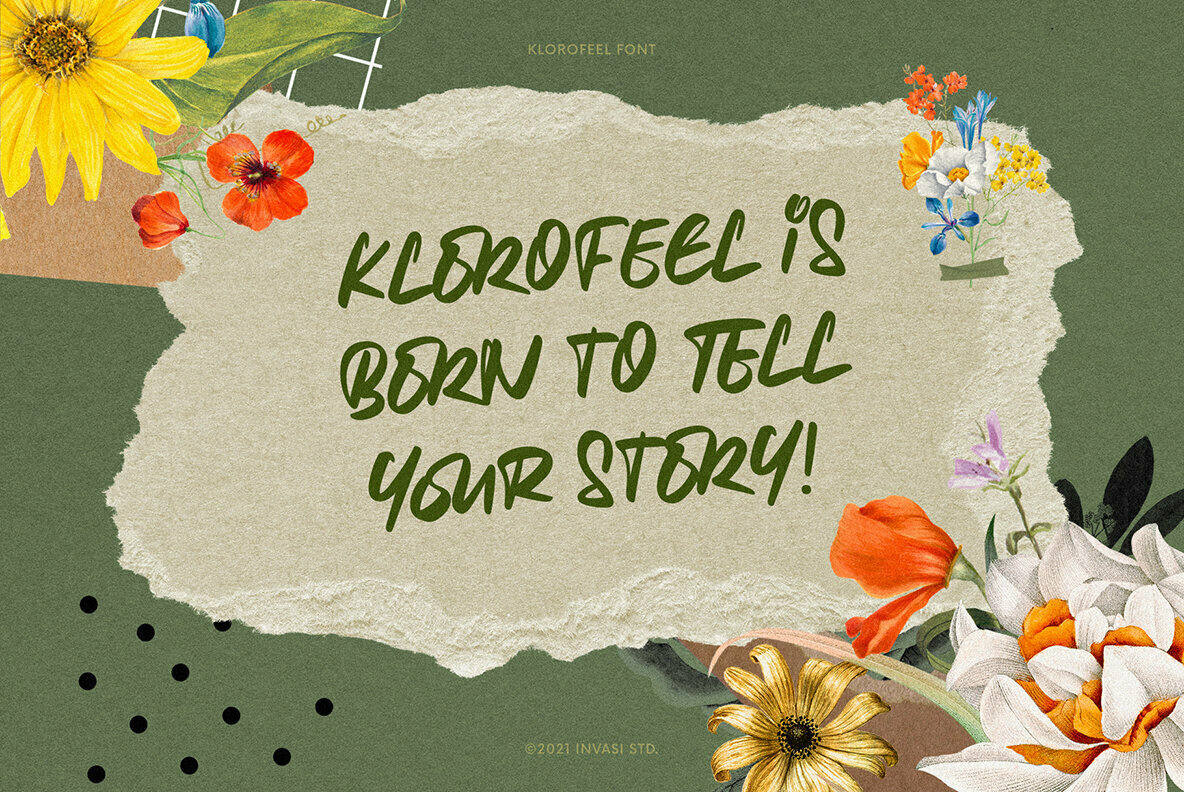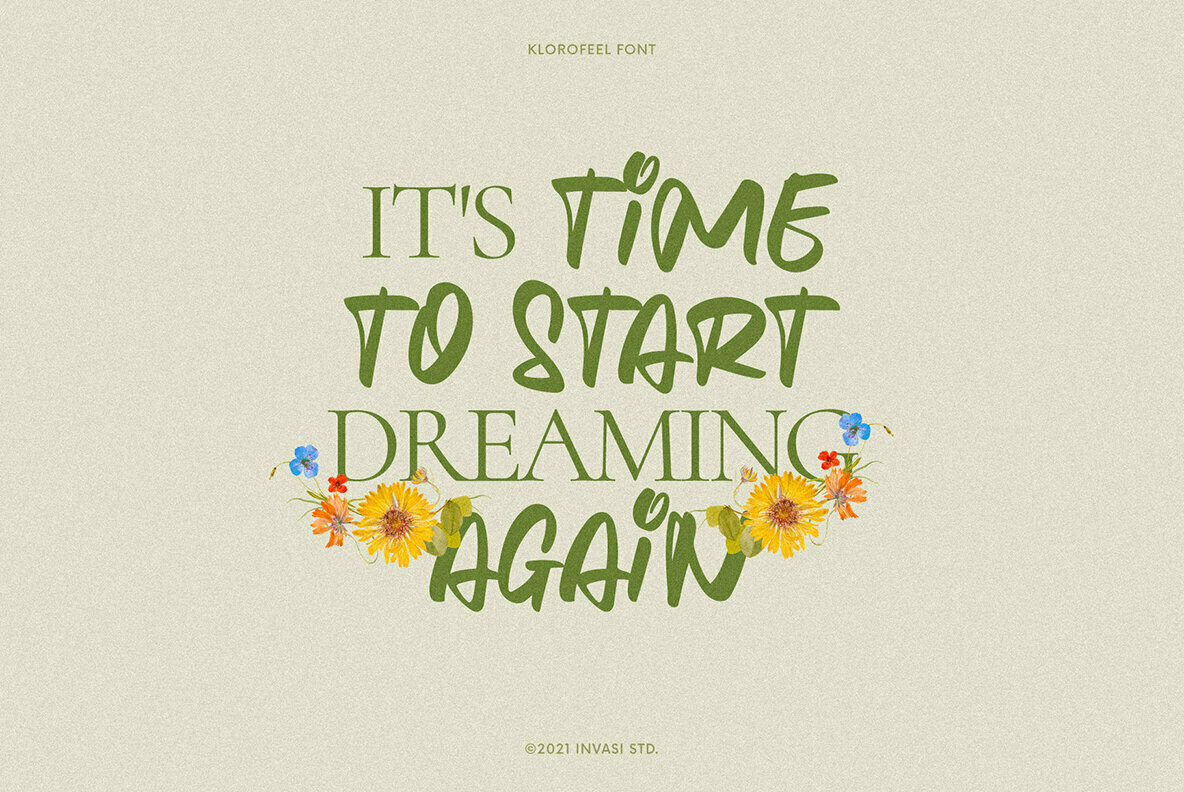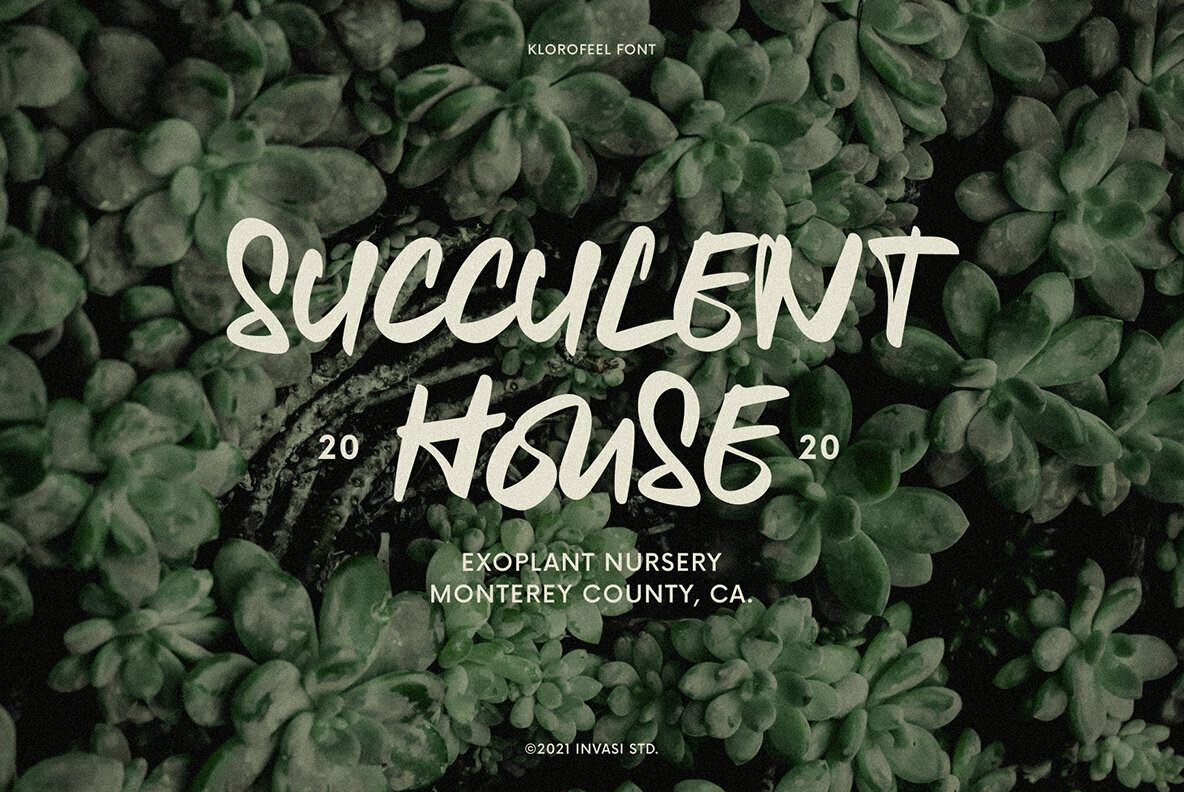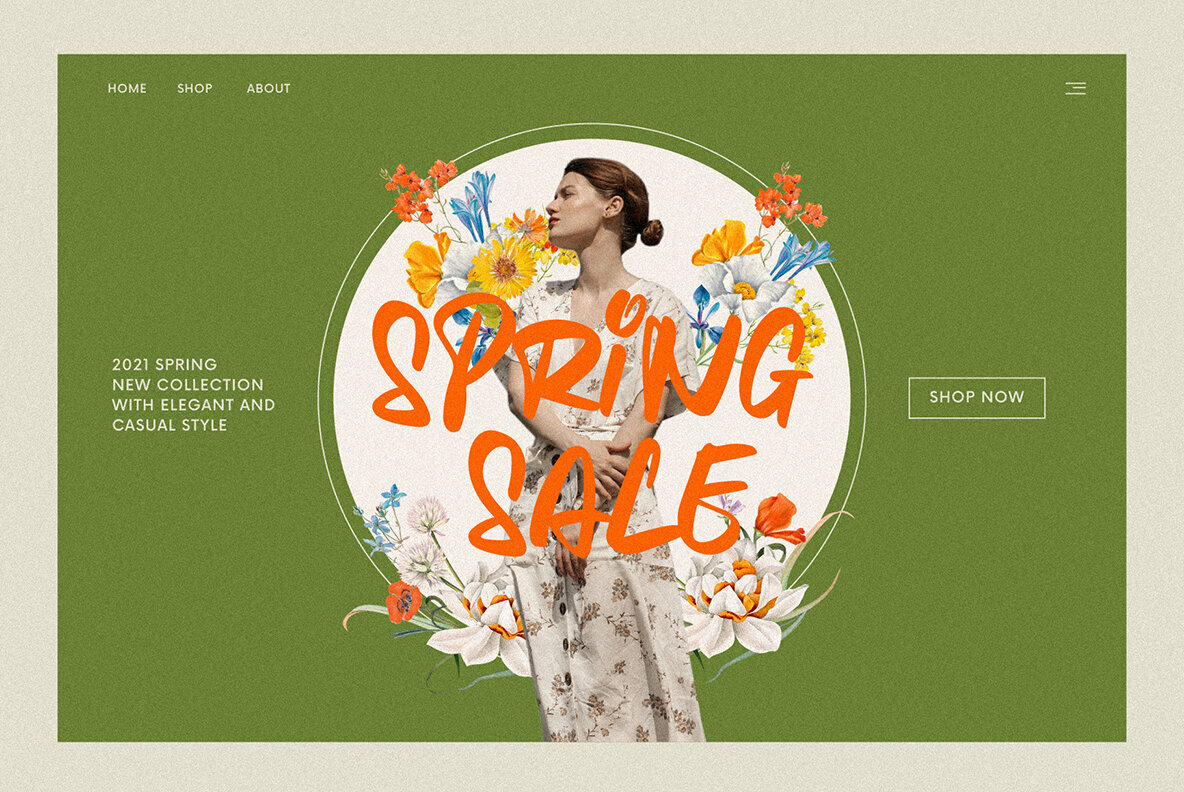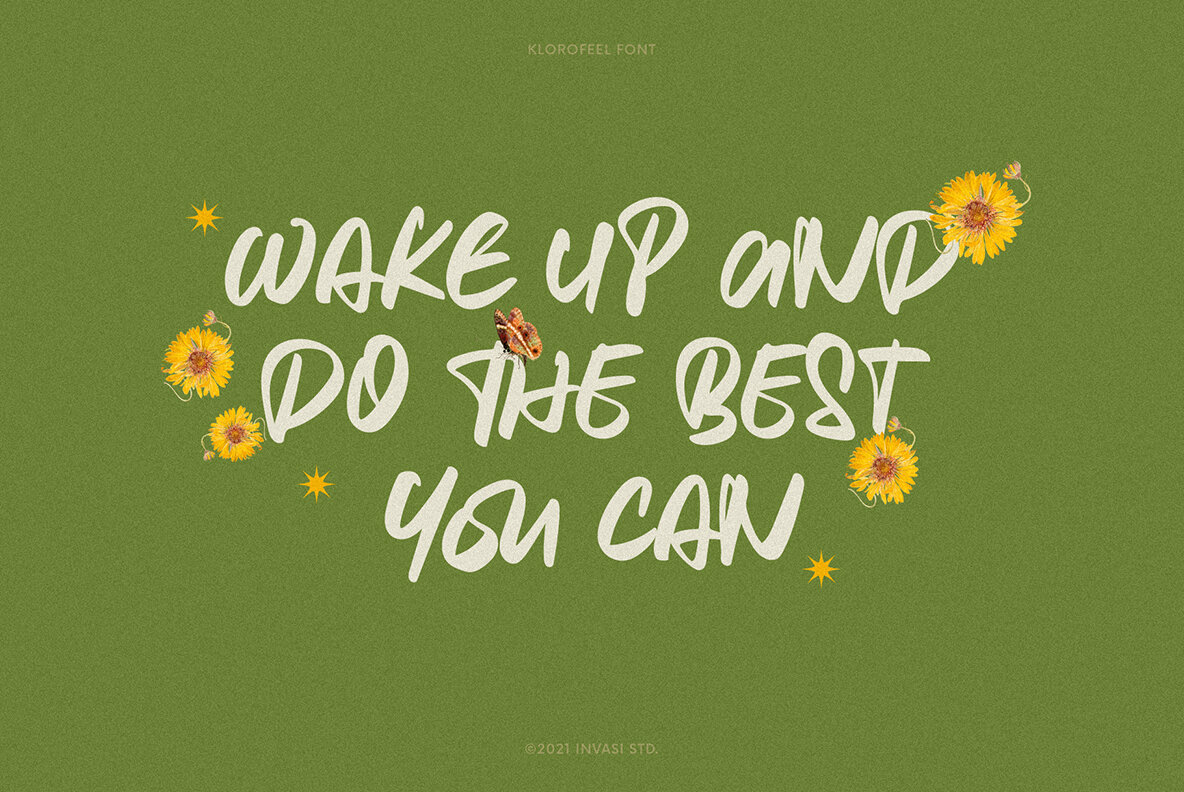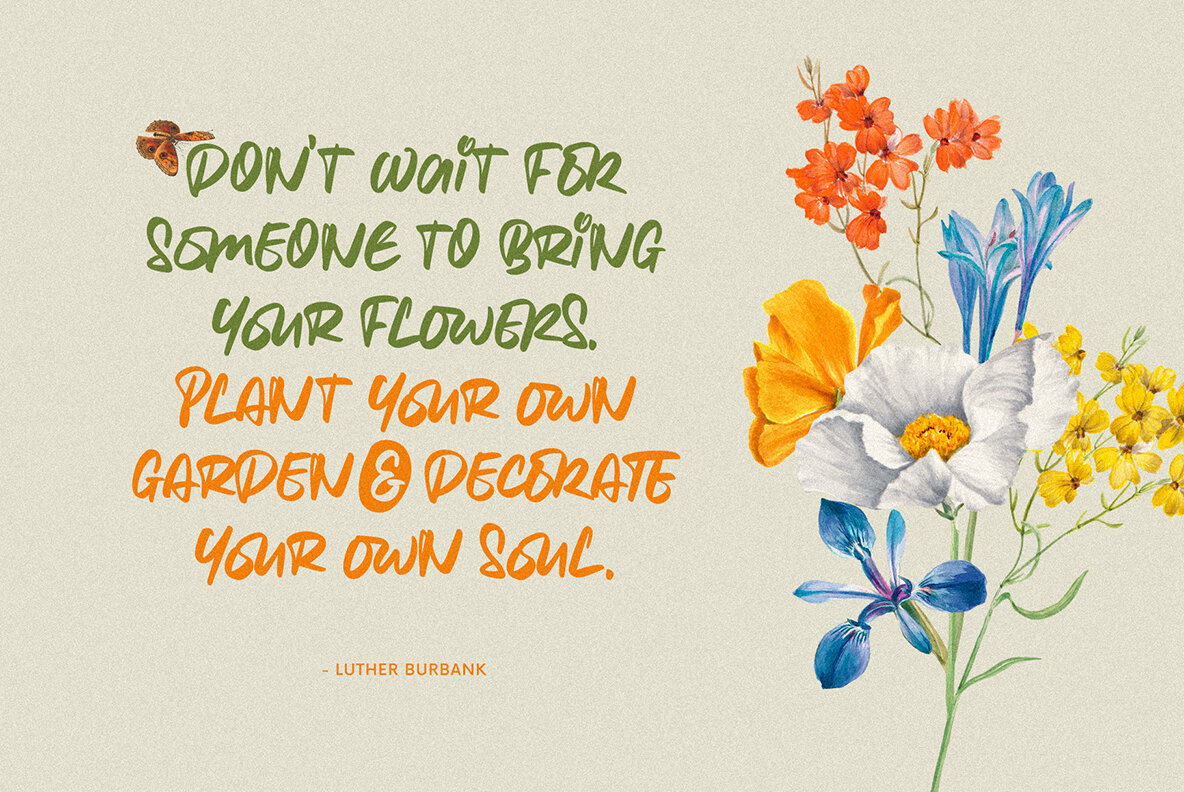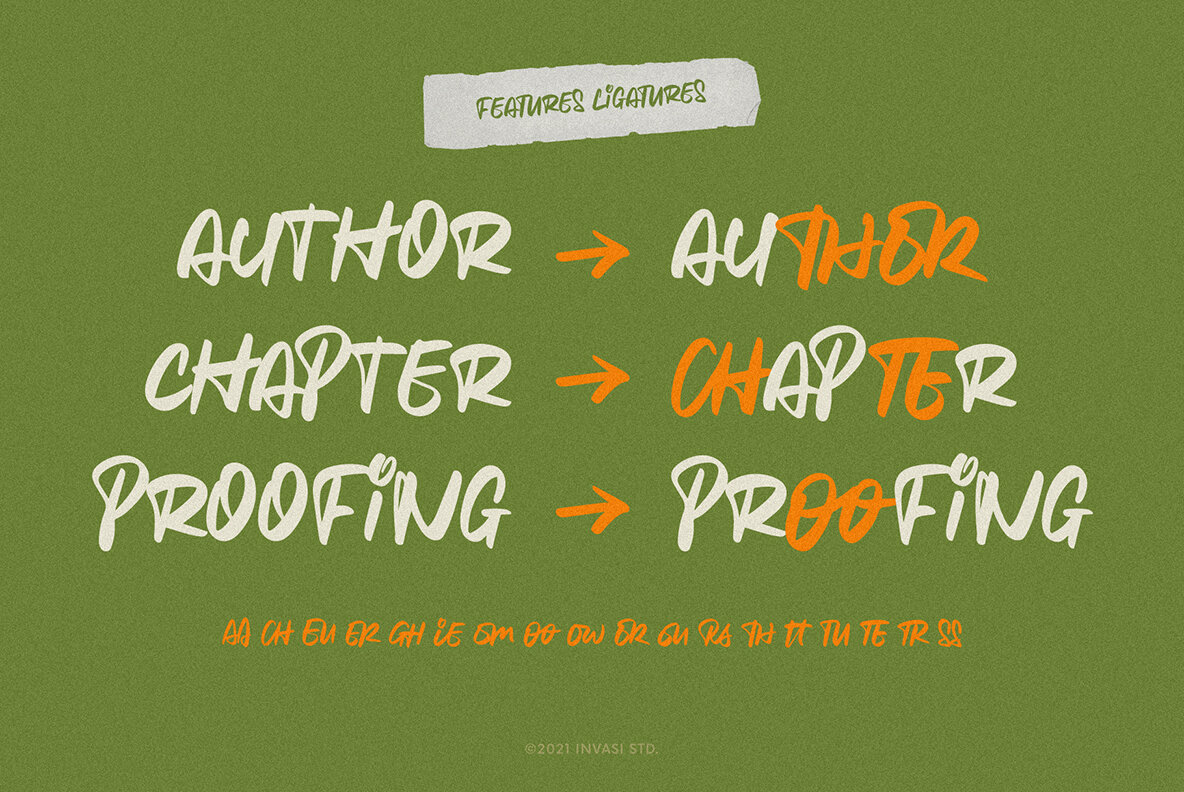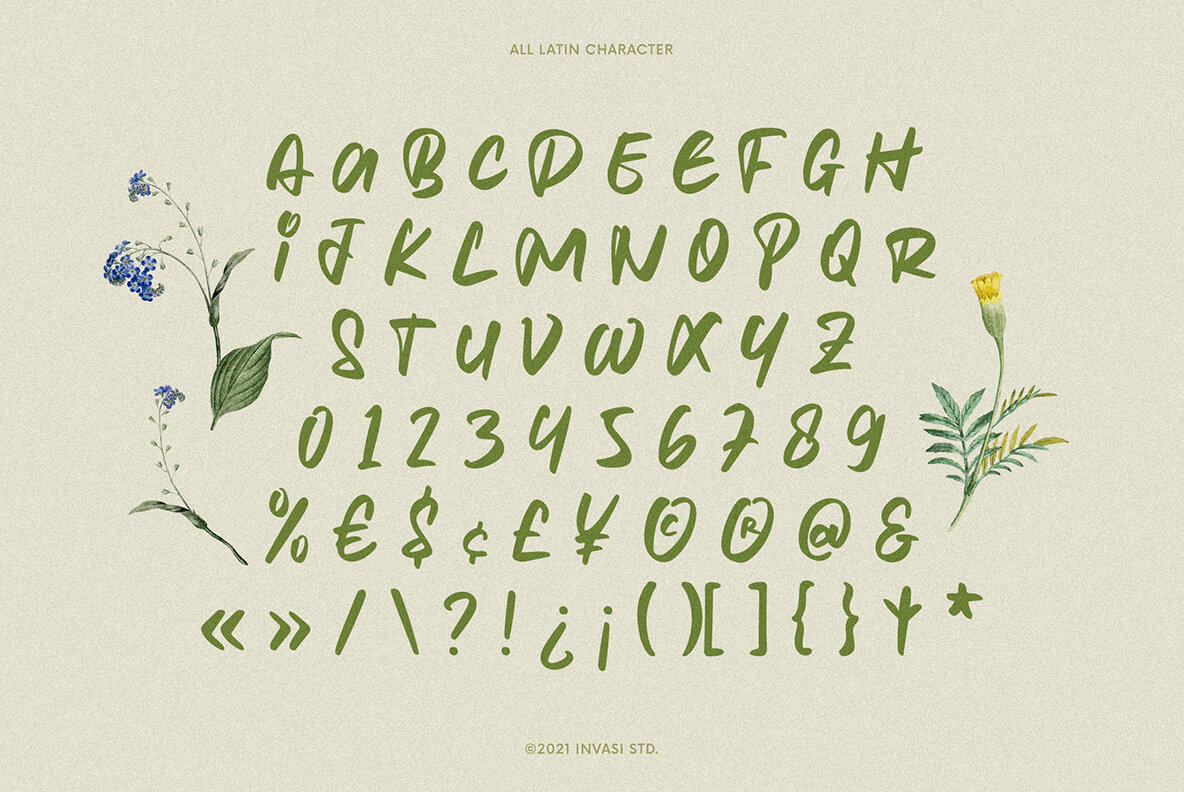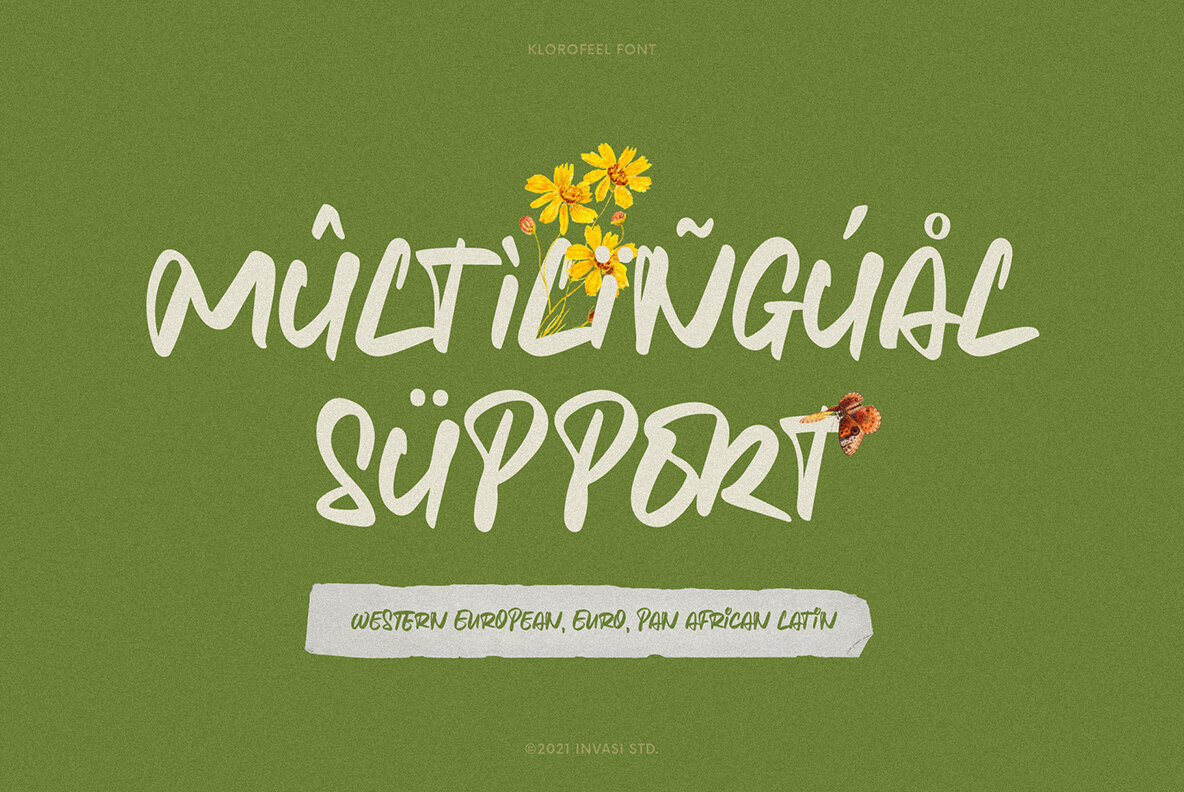
Klorofeel Font
Klorofeel
Featuring a classy elegant handwritten display typeface, Klorofeel font is inspired by Plants and Poems. This font was created to help you tell your story. Klorofeel comes with so many ligatures, that you can use that for more fun on your projects.
Klorofeel is perfect for quotes, headlines, branding projects, or any project requiring an elegant feel.